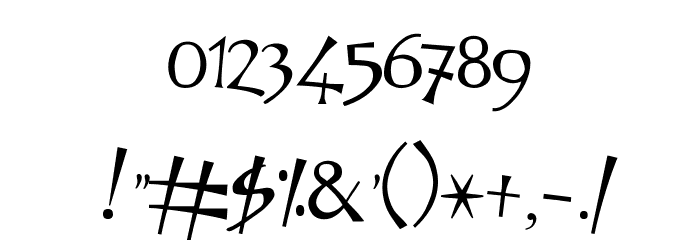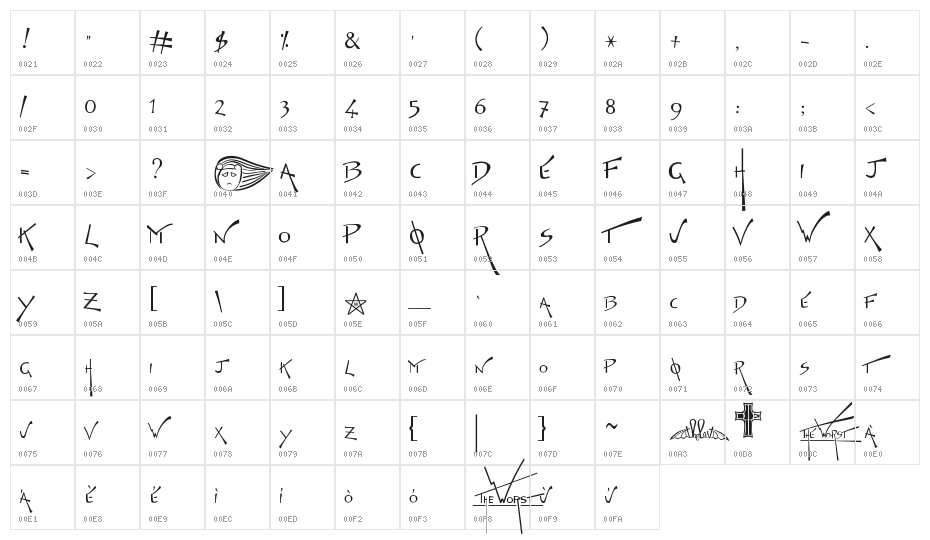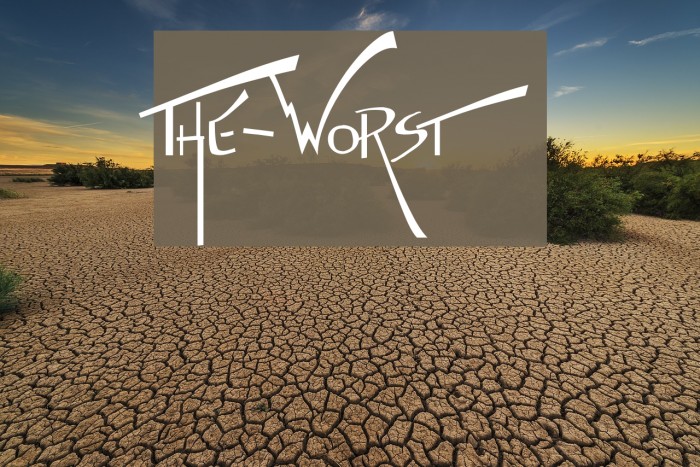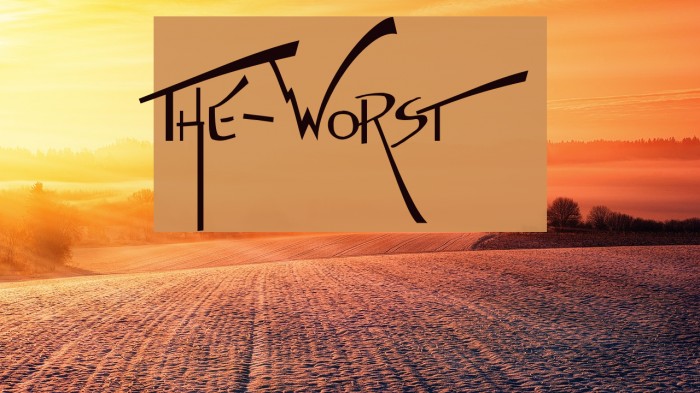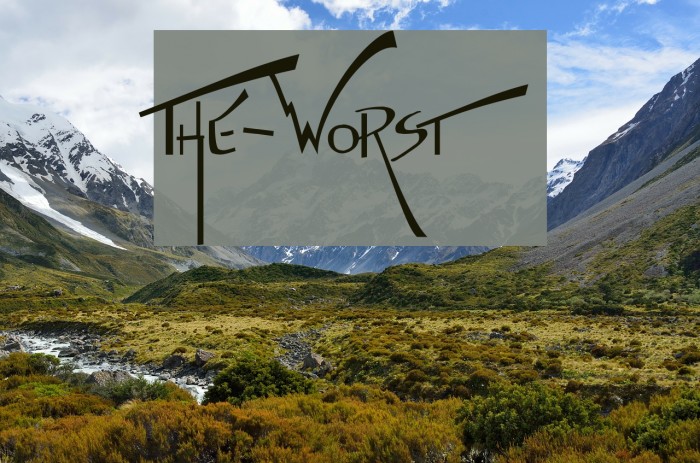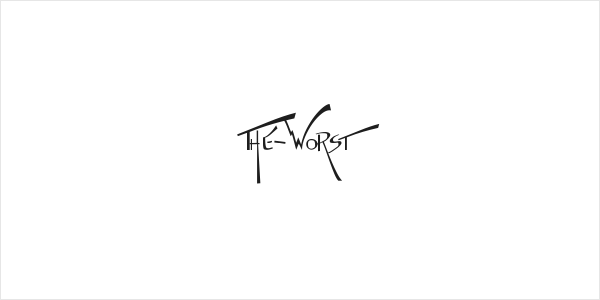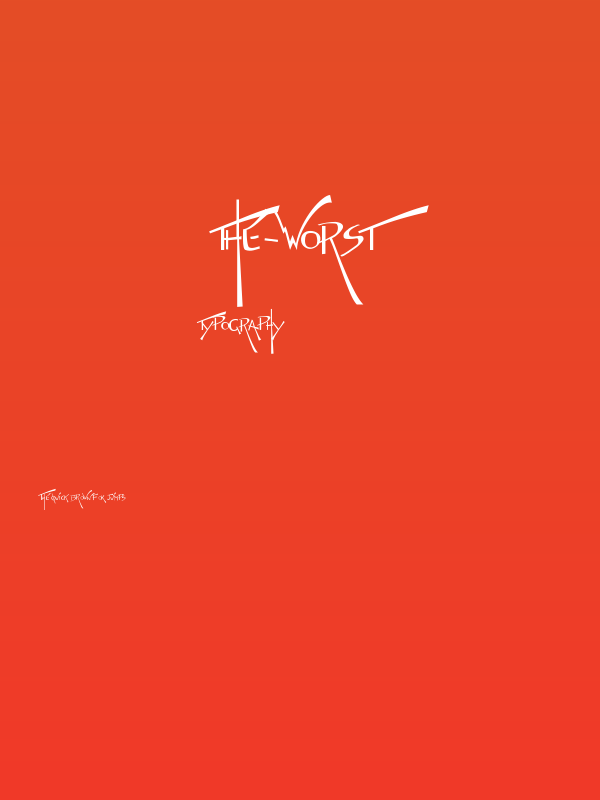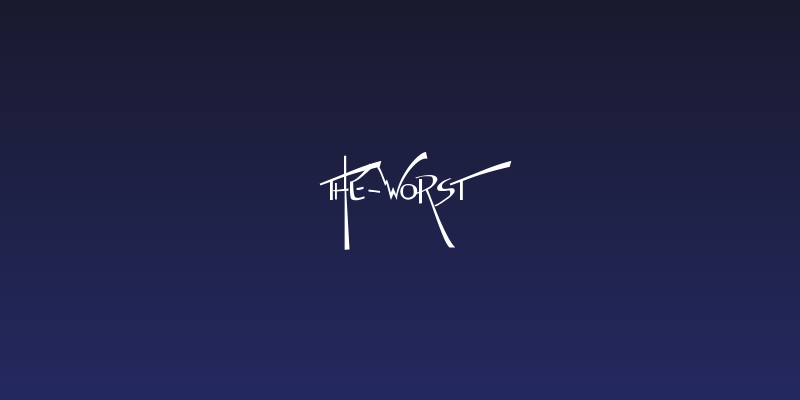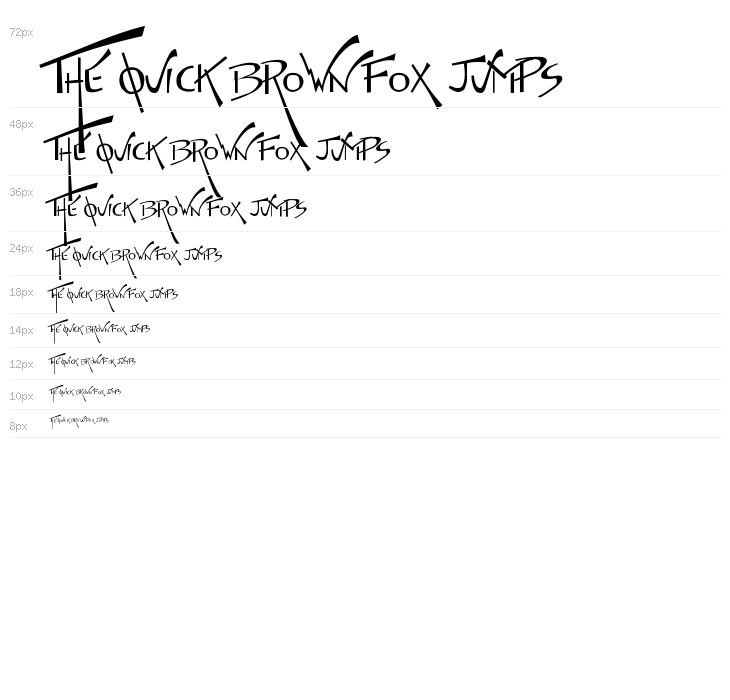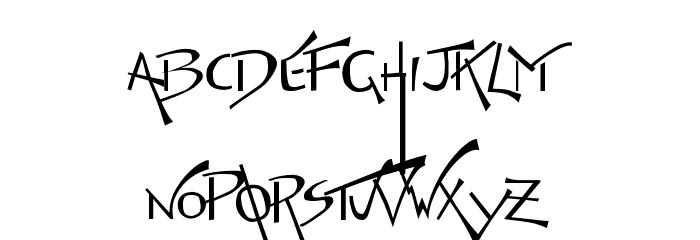
The-Worst Font
The-Worst Description
This font exhibits a highly decorative and unique style, characterized by sharp, angular lines and exaggerated curves. The letters have an almost graffiti-like appearance, with some characters featuring elongated strokes and asymmetrical forms. The overall design is bold and dynamic, making it stand out with its unconventional and artistic flair. The numerals and special characters maintain the same edgy aesthetic, ensuring consistency across all glyphs. This font is designed to capture attention and convey a sense of creativity and rebellion.
| Proposed Projects | Ideal for street art projects, edgy branding, album covers, and posters that require a bold statement. |